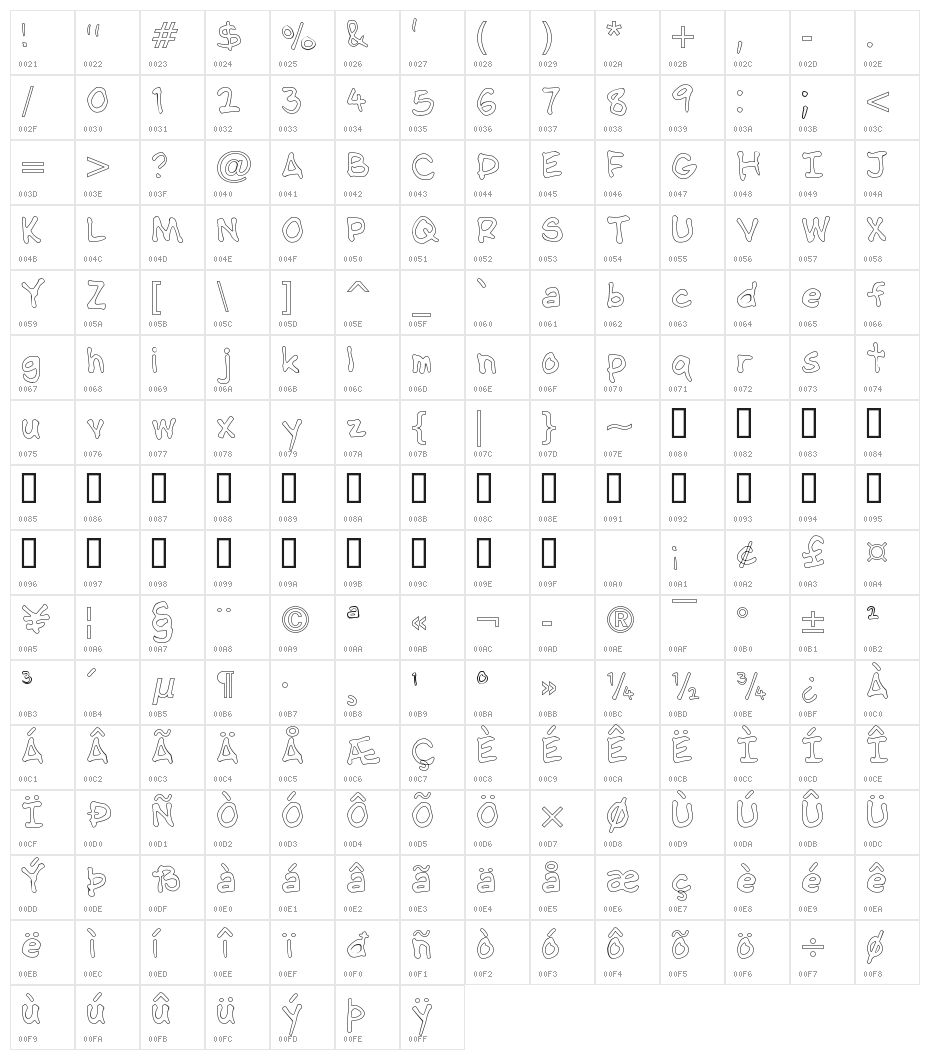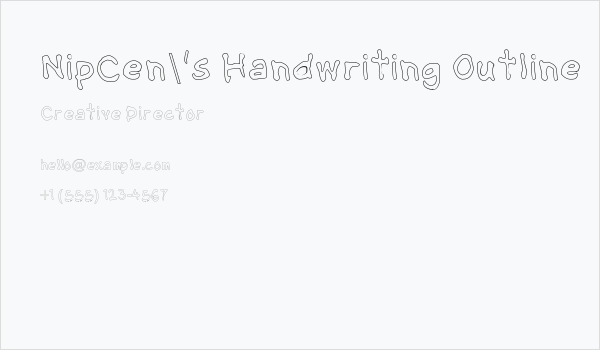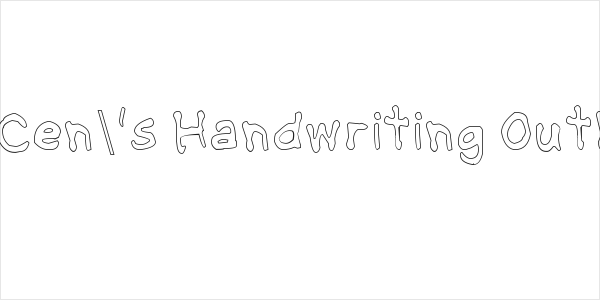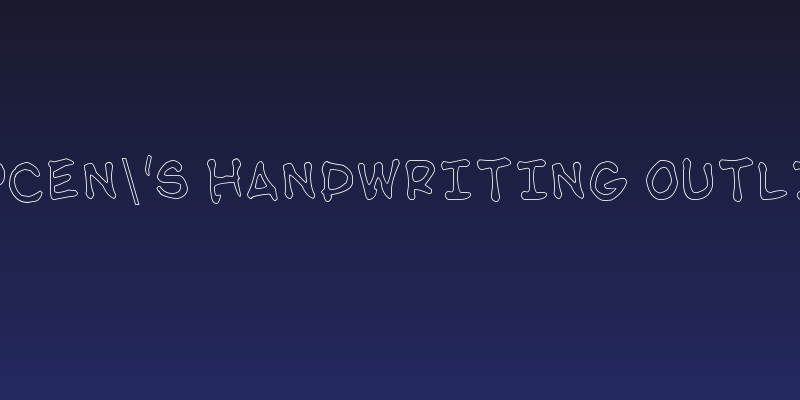
NipCen's Handwriting Outline Font
NipCen's Handwriting Outline Description
This font features a playful, handwritten style with an outline effect, giving it a casual and informal appearance. The characters are slightly irregular, adding to the hand-drawn aesthetic. Each letter is distinct, with rounded edges and a consistent stroke width that maintains the outline look. The font includes both uppercase and lowercase letters, numerals, and a variety of special characters, making it versatile for different design needs. Its unique style is eye-catching and suitable for creative projects.
| Proposed Projects | Ideal for children's book covers, playful posters, greeting cards, and creative branding projects. |